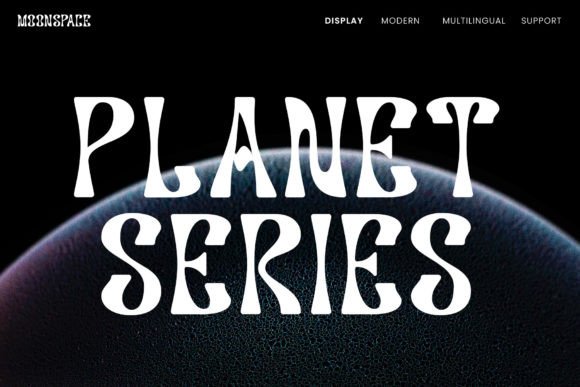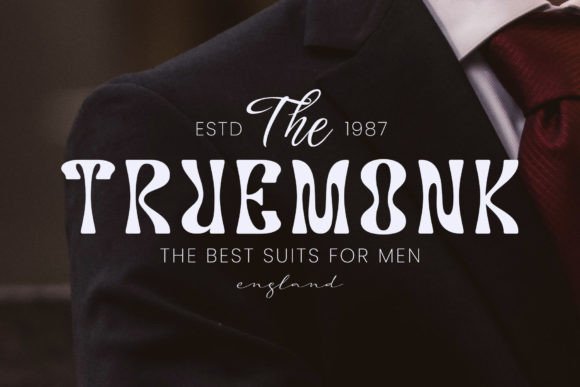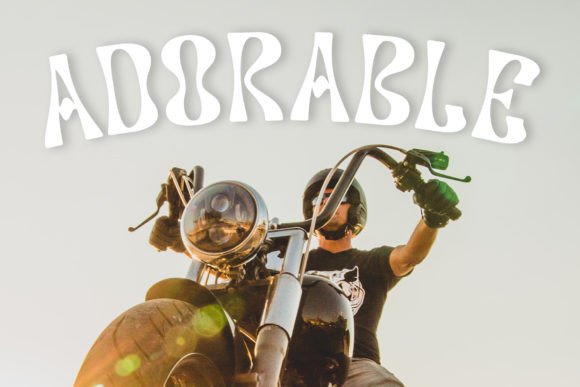
Introduction to Moon Space Font
Moonspace is a unique display sans-serif font with a captivating wave-like character on each letter.
Despite its slightly taller height, this font remains highly legible and suitable for a wide range of designs Crafted with precision and balanced letter proportions, Moonspace delivers a professional and eye-catching look.
Moon Space Font offers exceptional quality and versatility, making it a valuable addition to your design toolkit. Whether you’re creating for personal projects or commercial use, Moon Space Font delivers professional results.